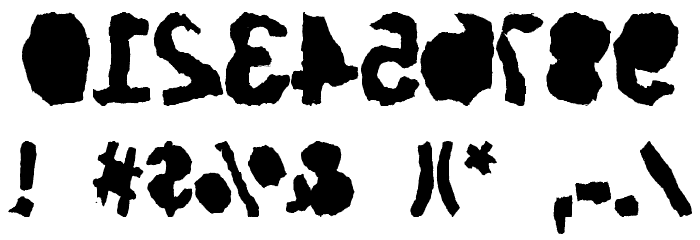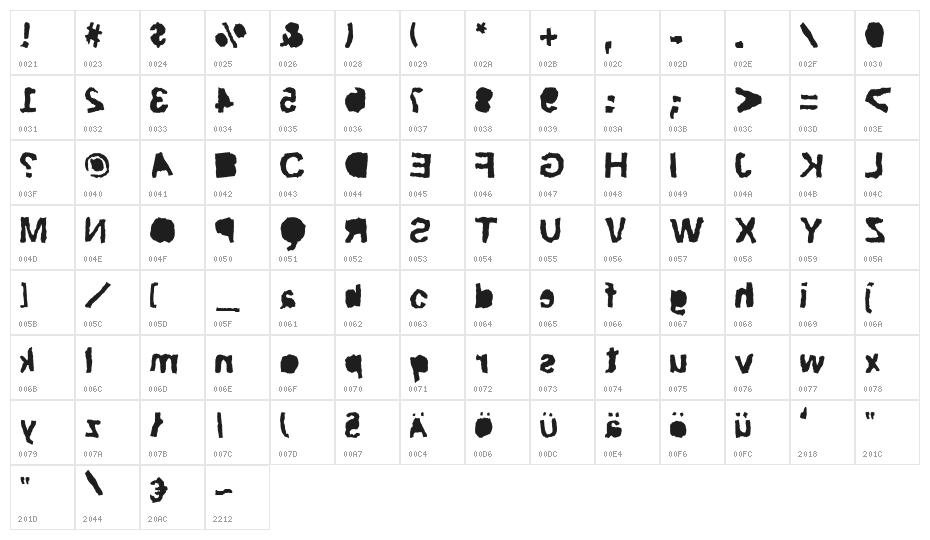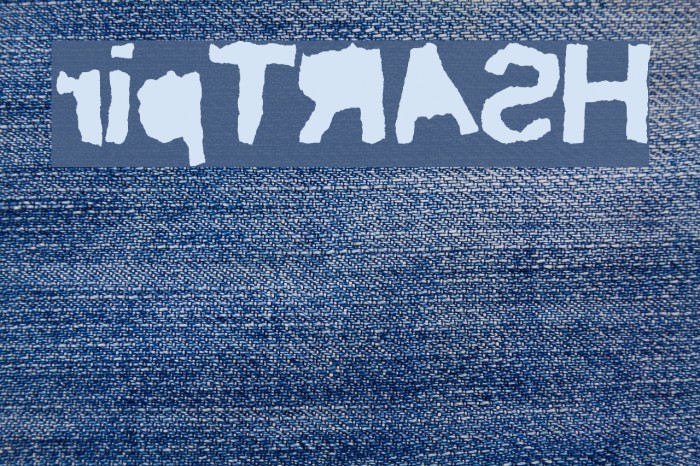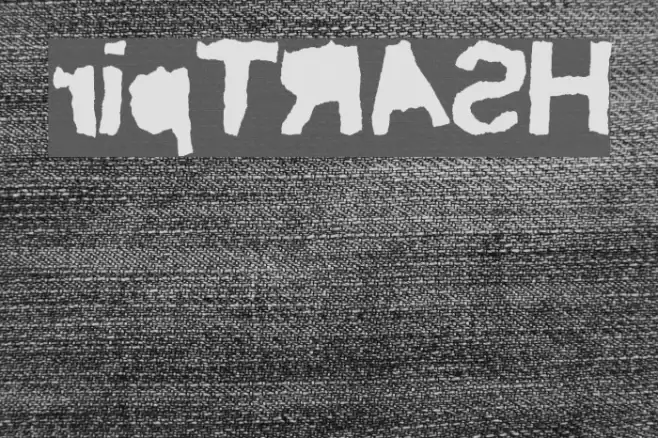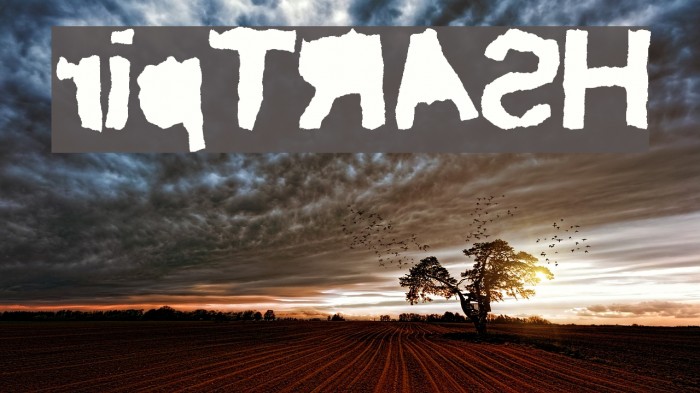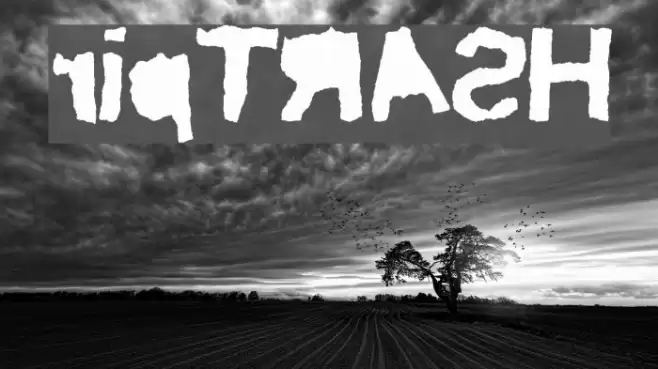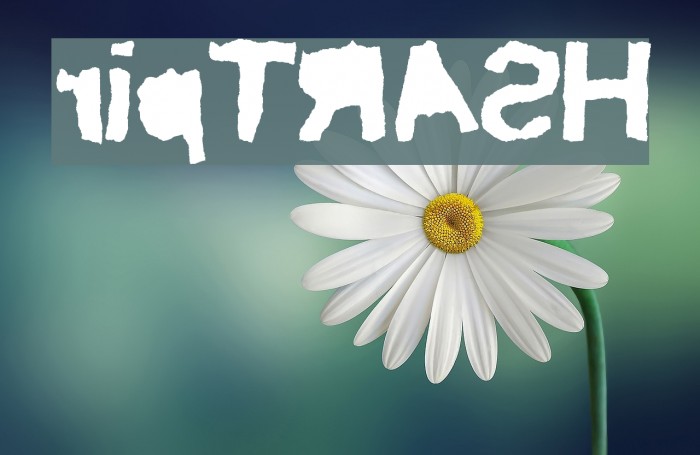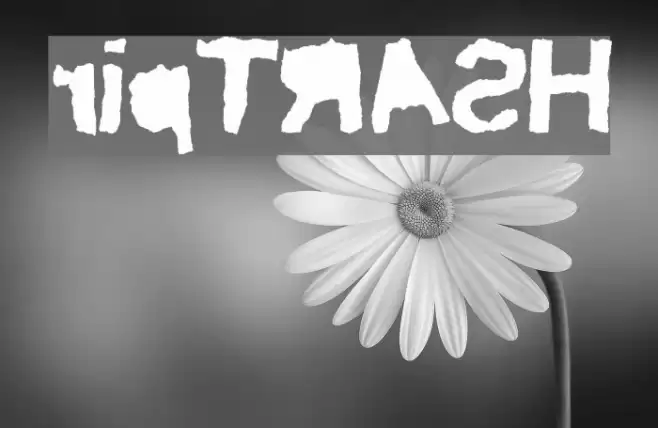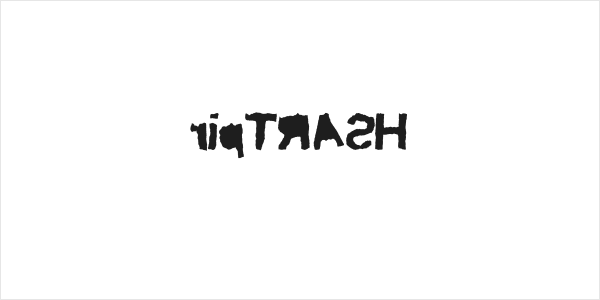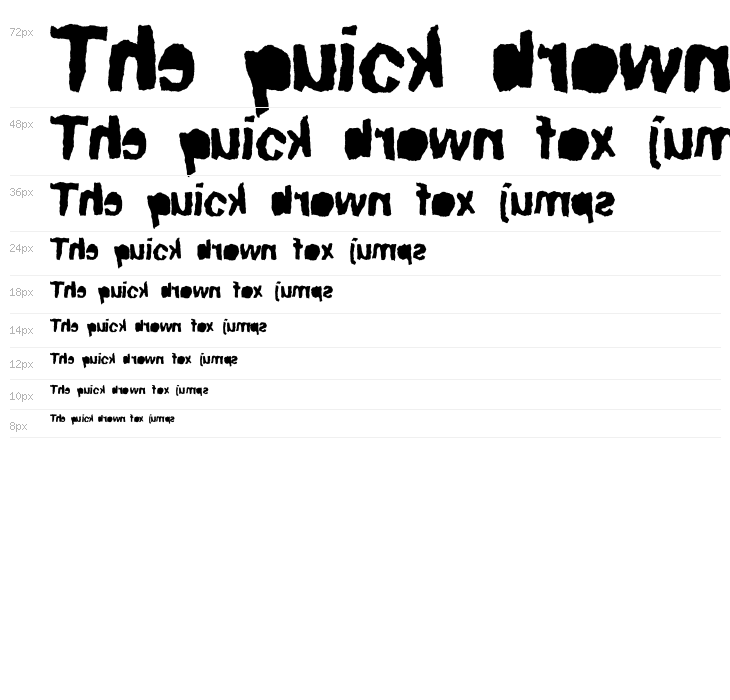
ripTRASH Font
ripTRASH Description
This font features a rugged and distressed style, characterized by irregular edges and a bold, impactful presence. The letters are heavily textured, giving them a rough, almost torn appearance. This design choice creates a sense of rawness and edginess, making it ideal for projects that require a strong visual impact. The uppercase and lowercase letters maintain a consistent style, with each character appearing unique due to the uneven edges. Numbers and special characters follow the same design principles, ensuring a cohesive look across all text elements.
| Proposed Projects | Ideal for album covers, streetwear branding, poster designs, and any project needing a gritty, urban aesthetic. |